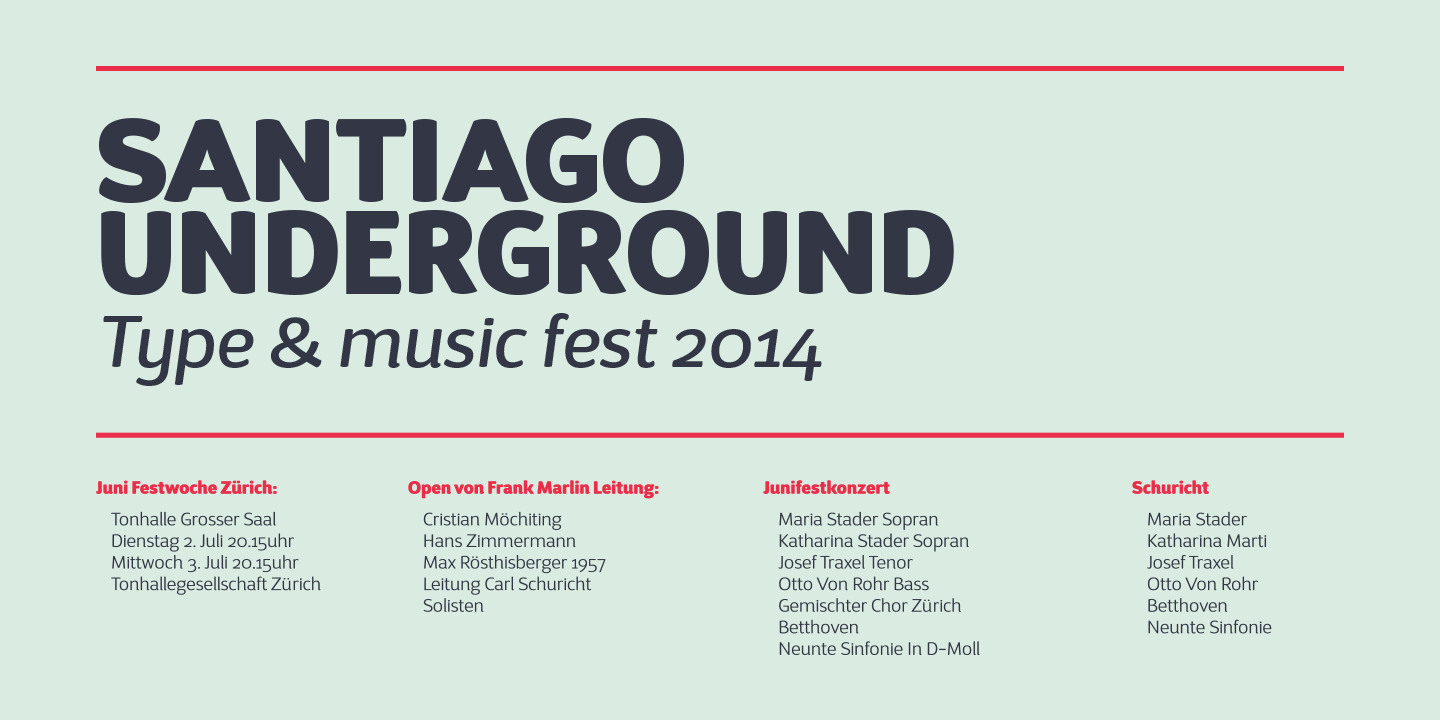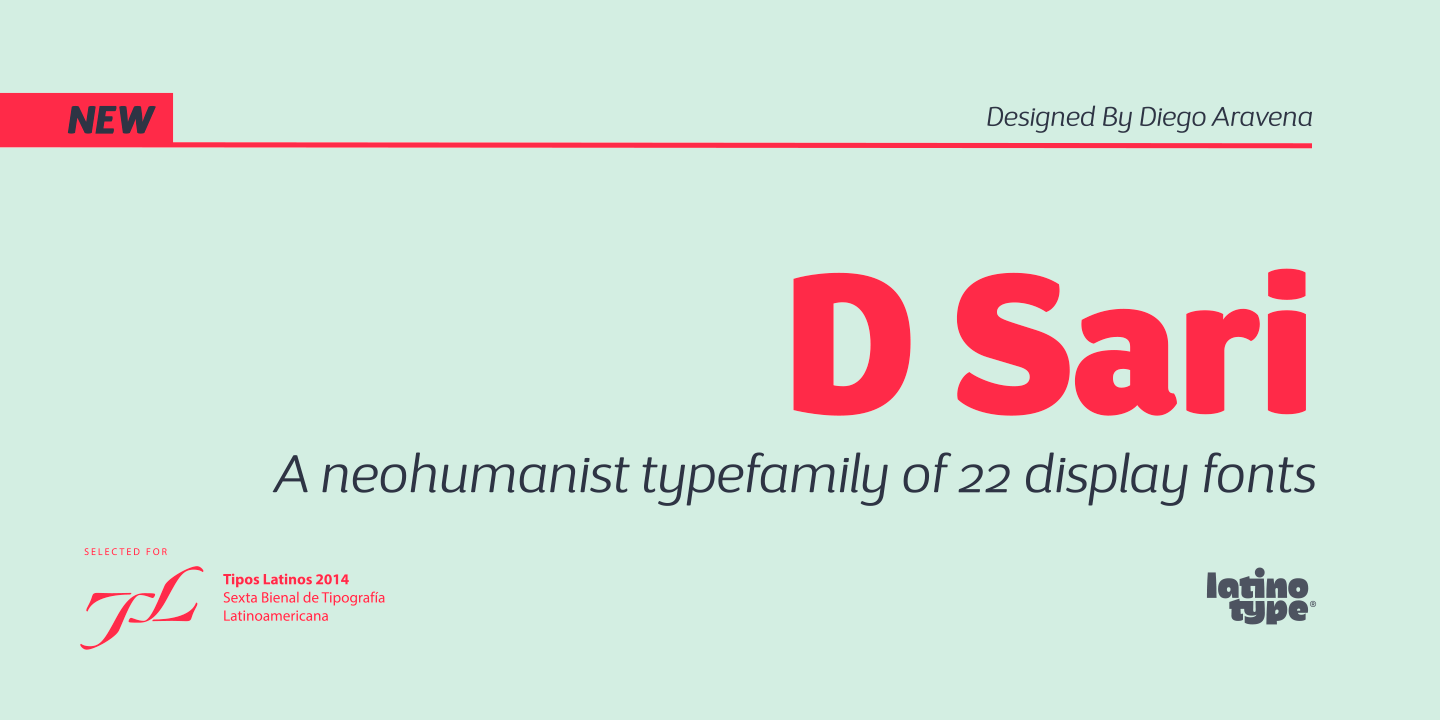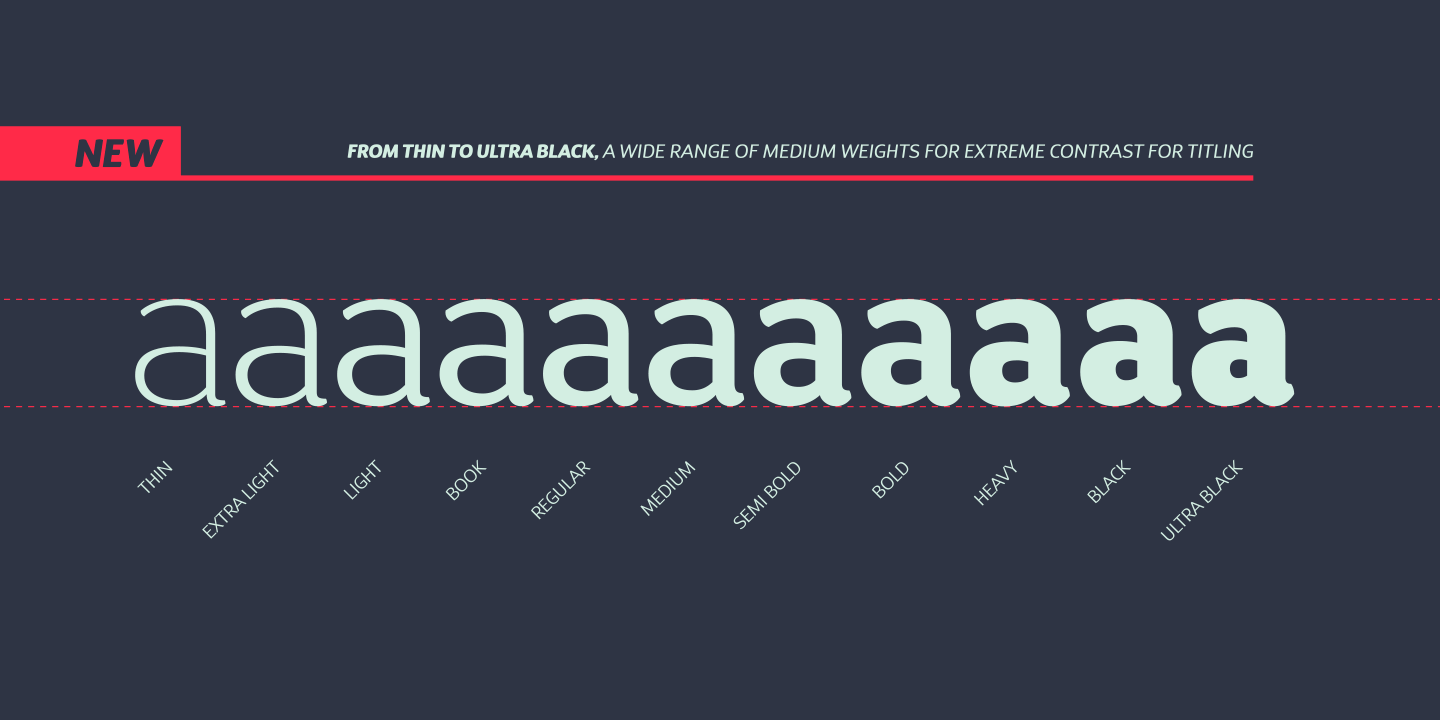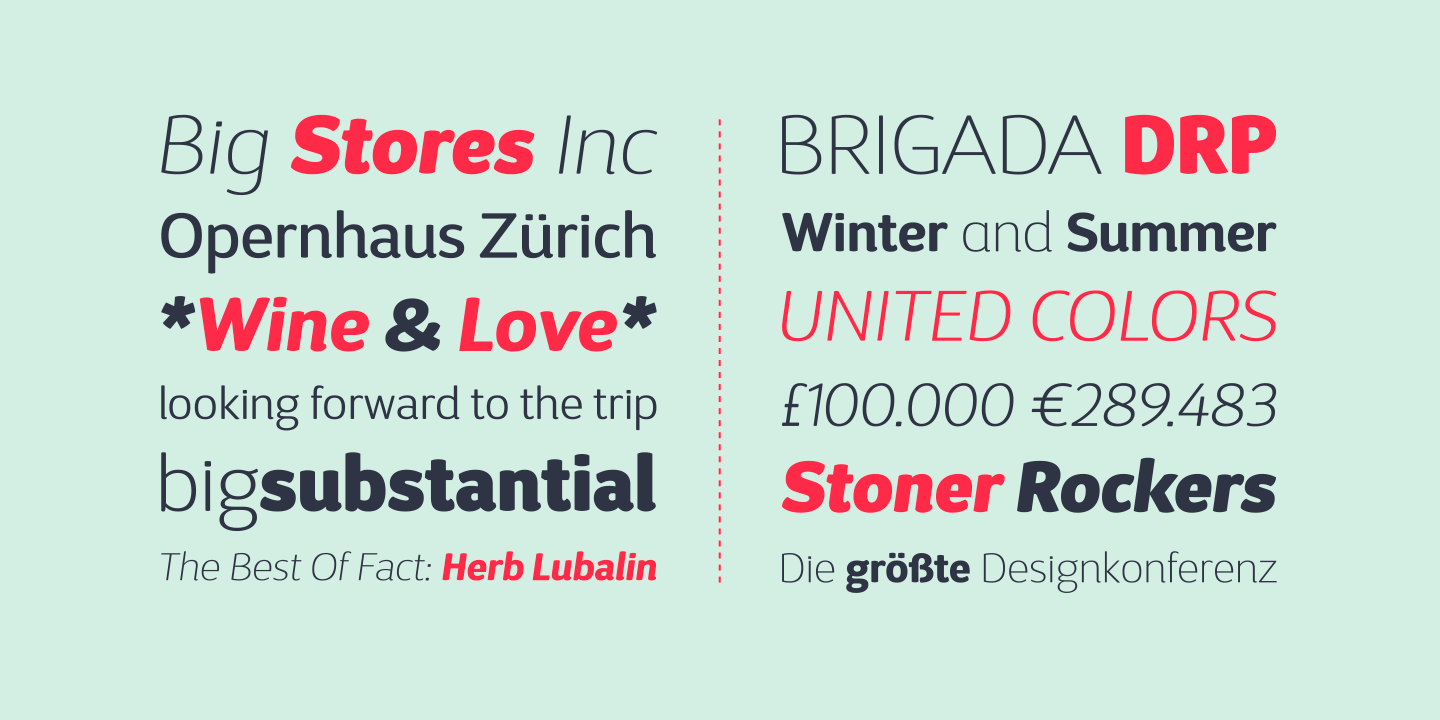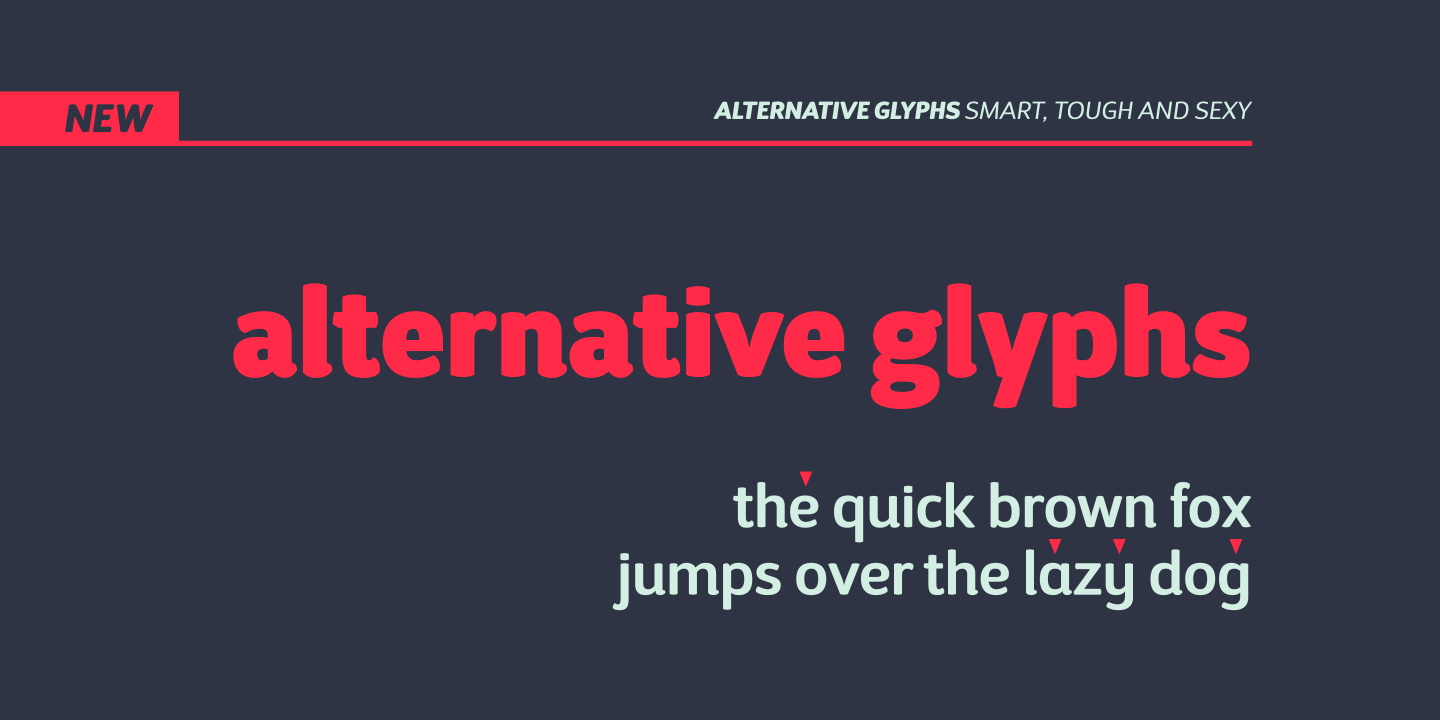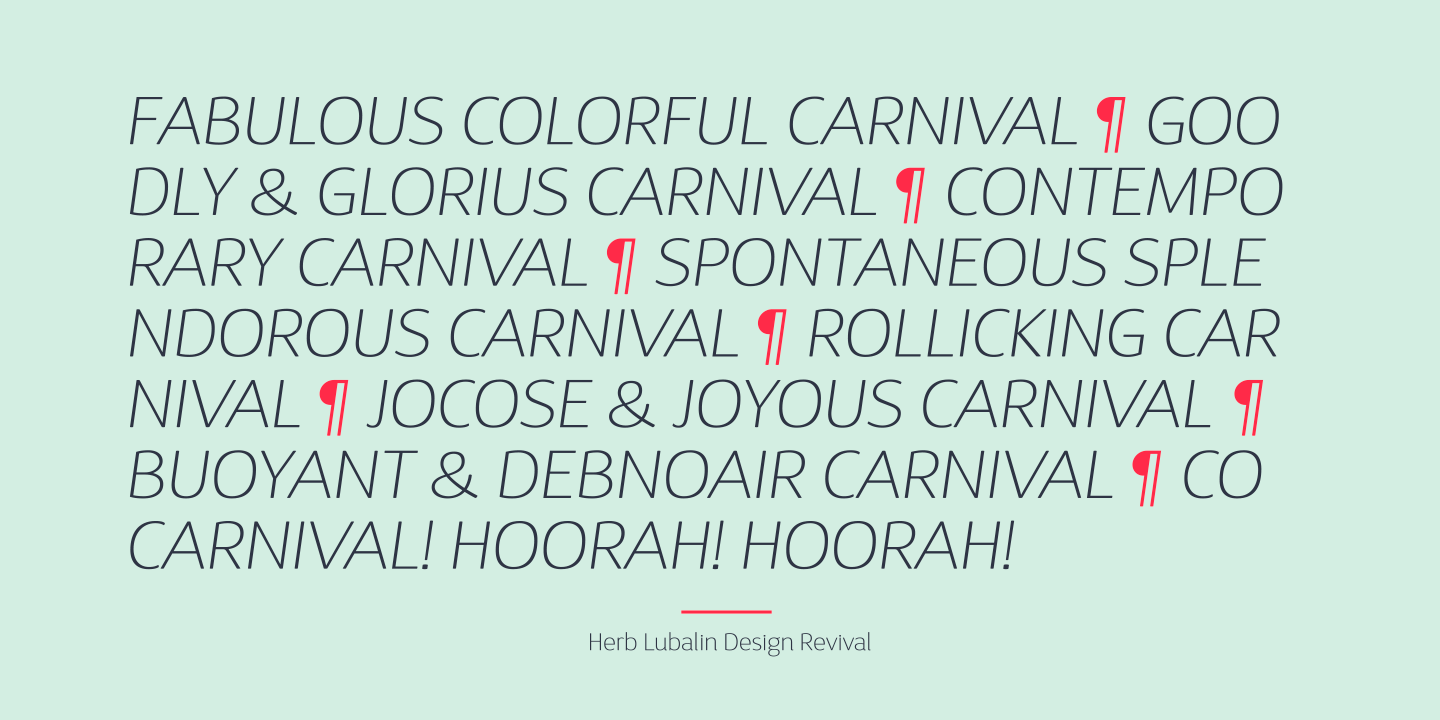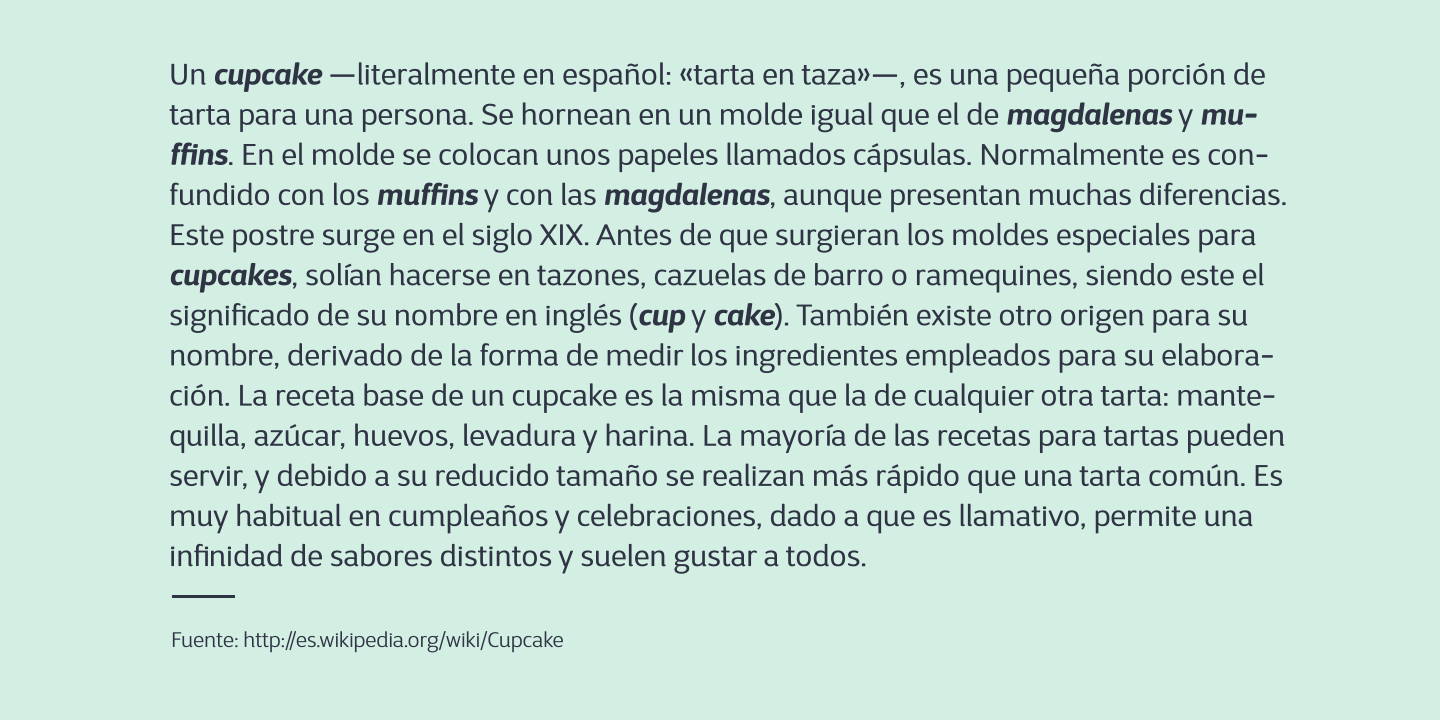
It is inspired by the friendliness and cordiality of neo-humanist type design with a mix of rounded shapes. D Sari is also a daring font with less pointed shapes, as is the case with regular neo-humanist typefaces. D Sari has 22 variants, which make it a very dynamic typeface. Well-suited for corporate use, web design, highlighting lettering, magazines, motion graphics, advertising, logotypes, signs, etc.